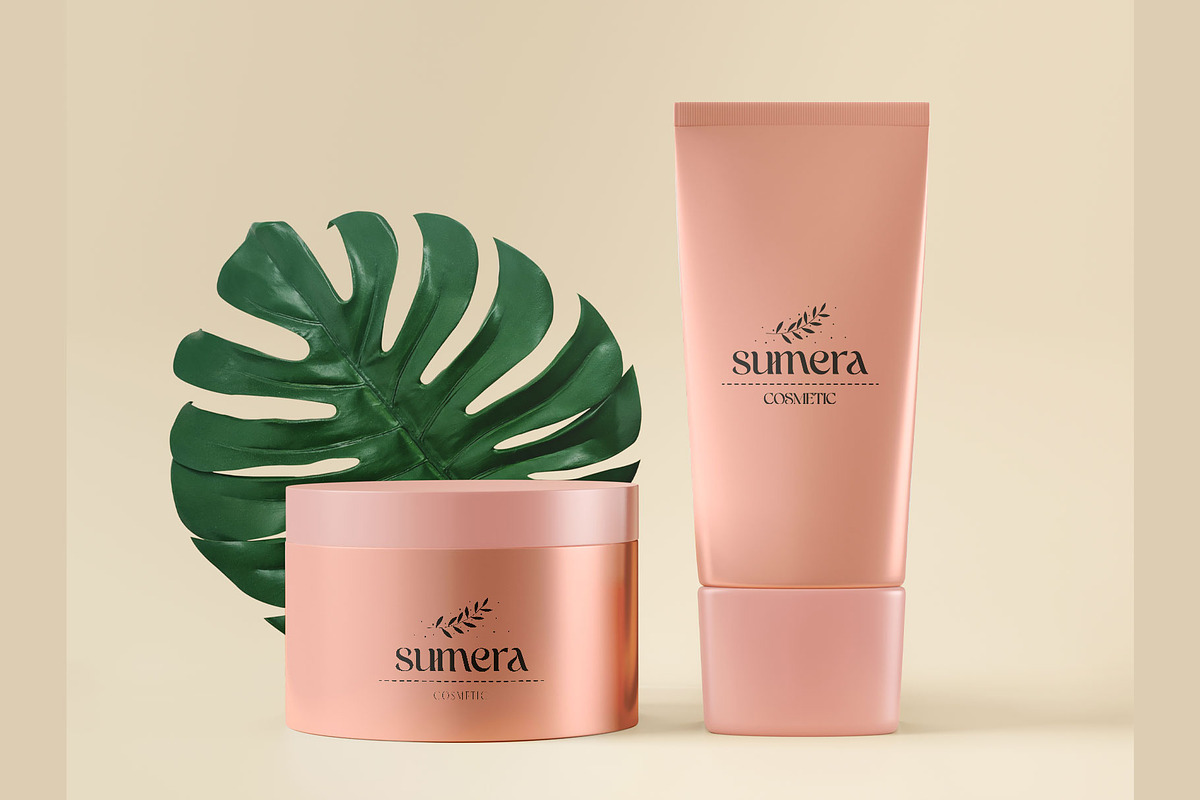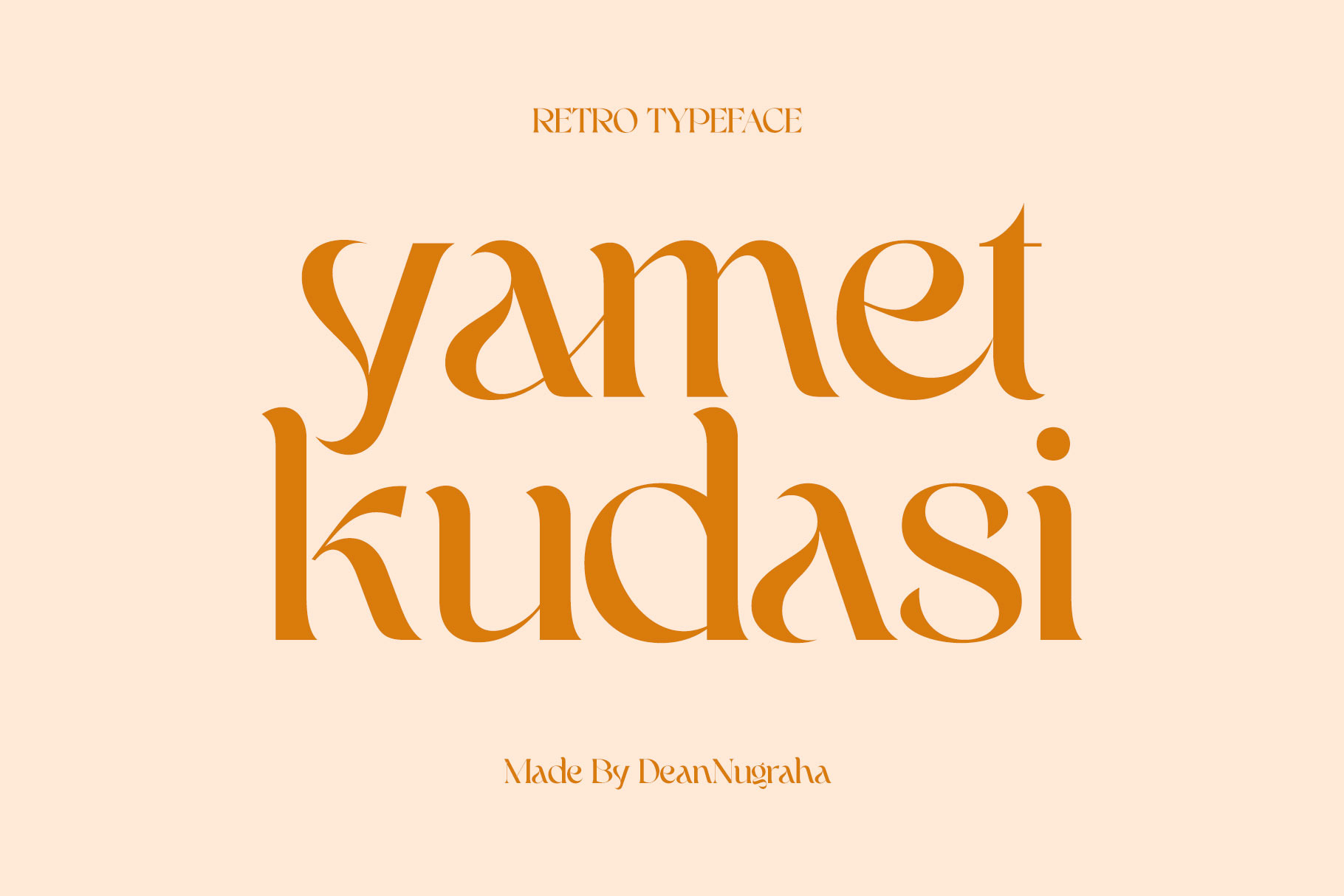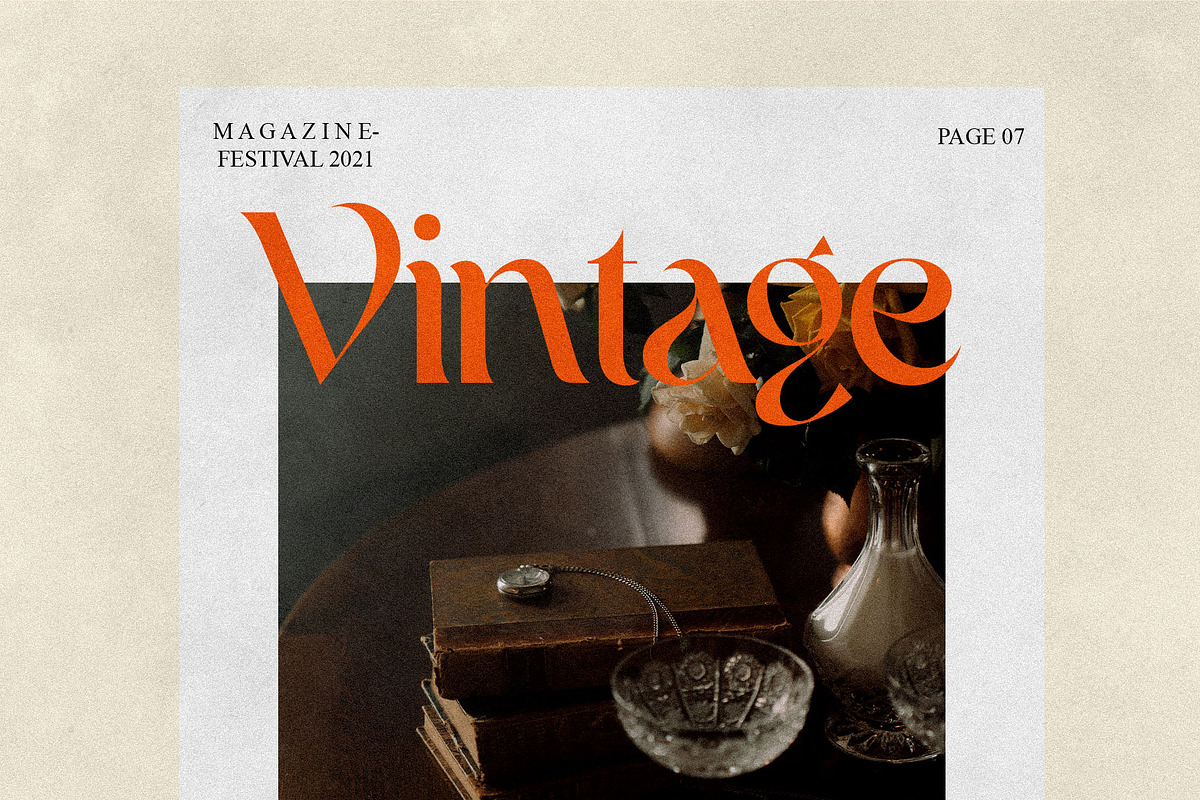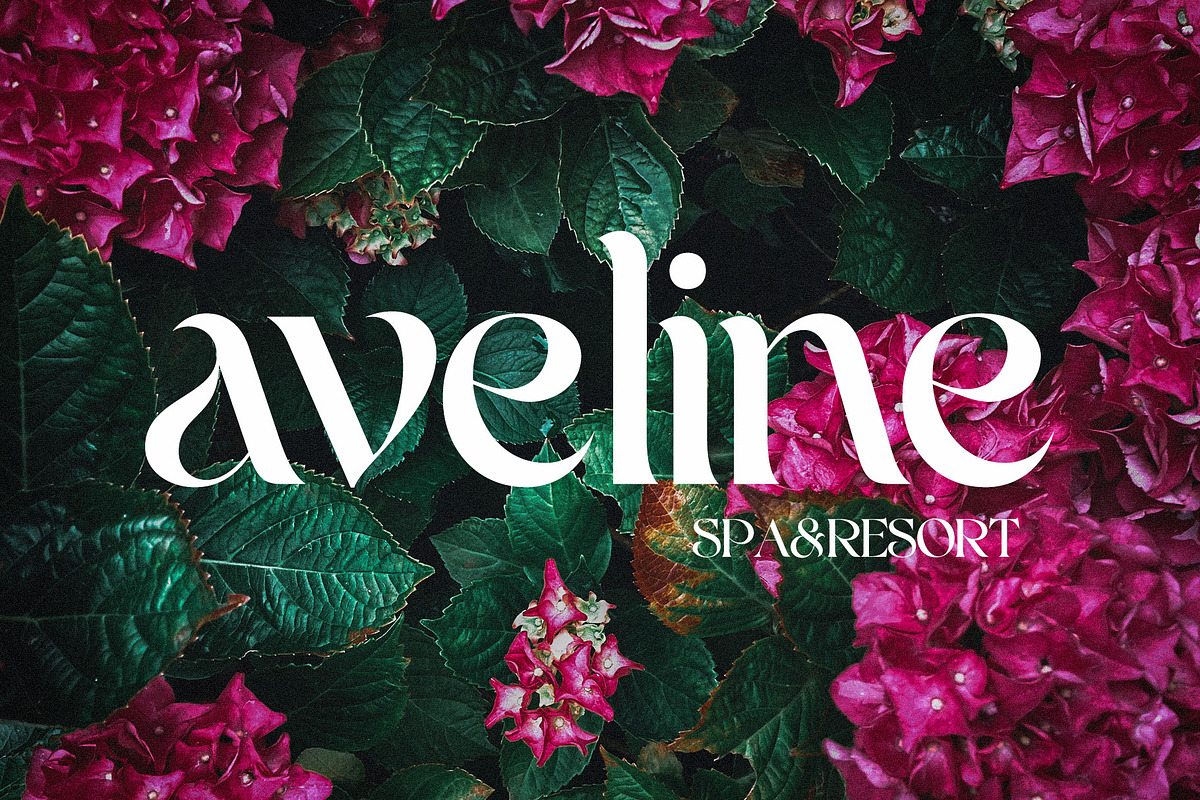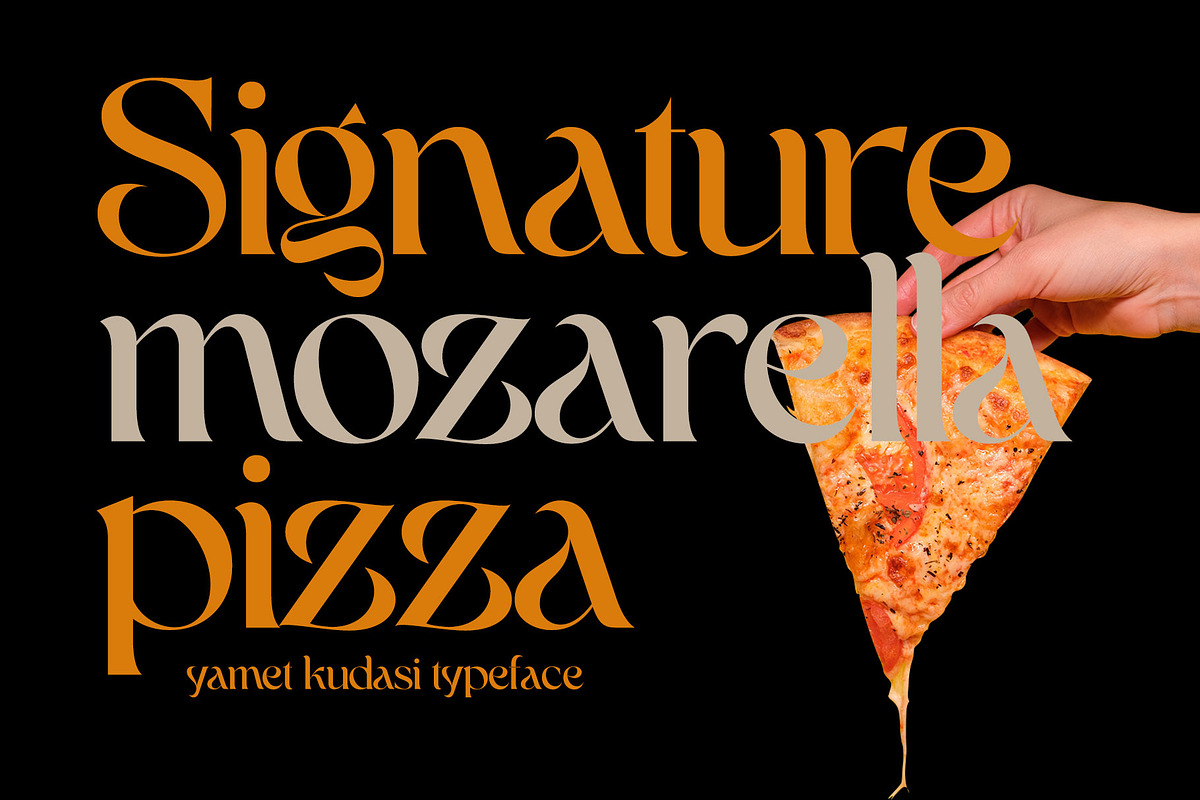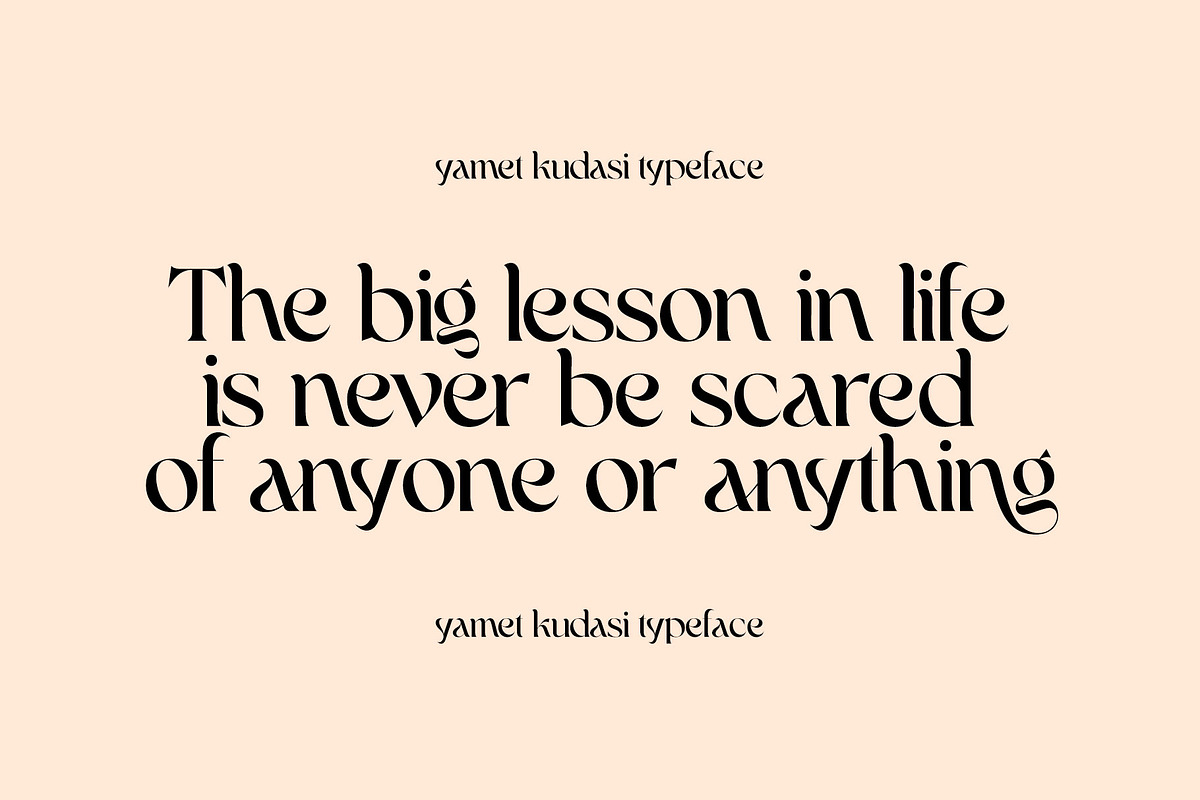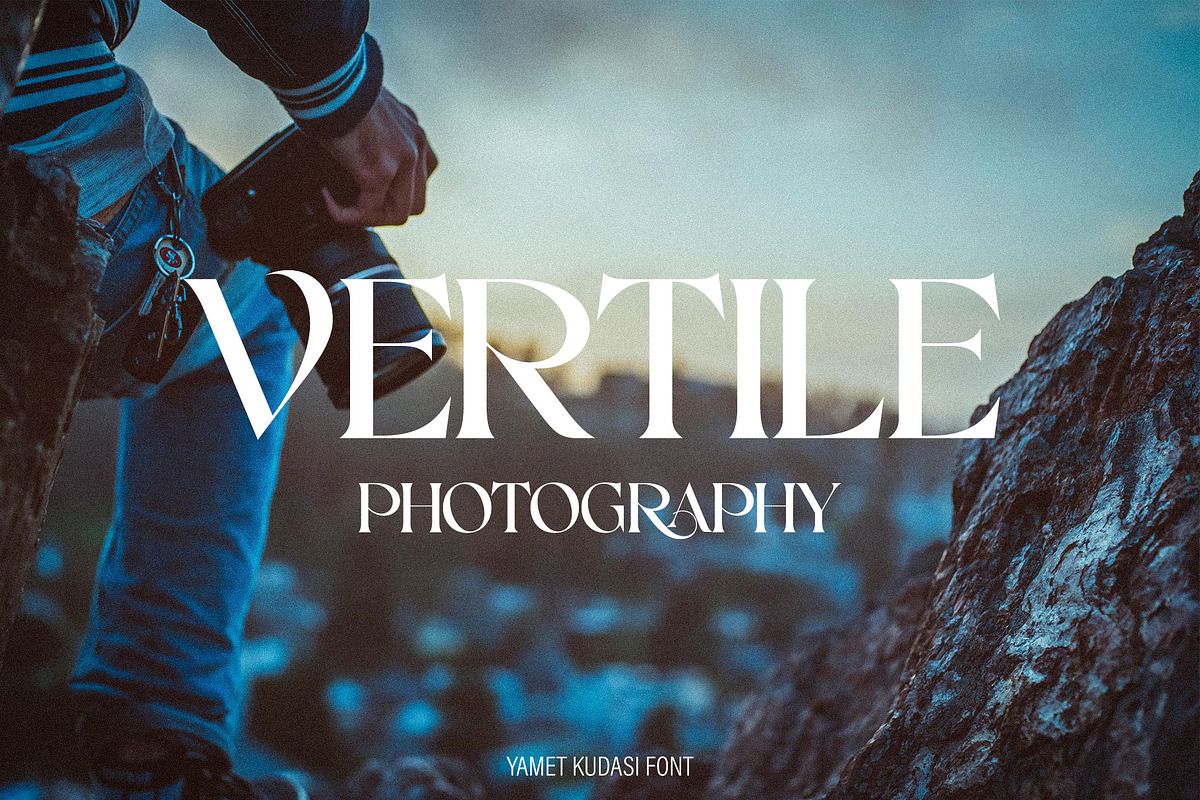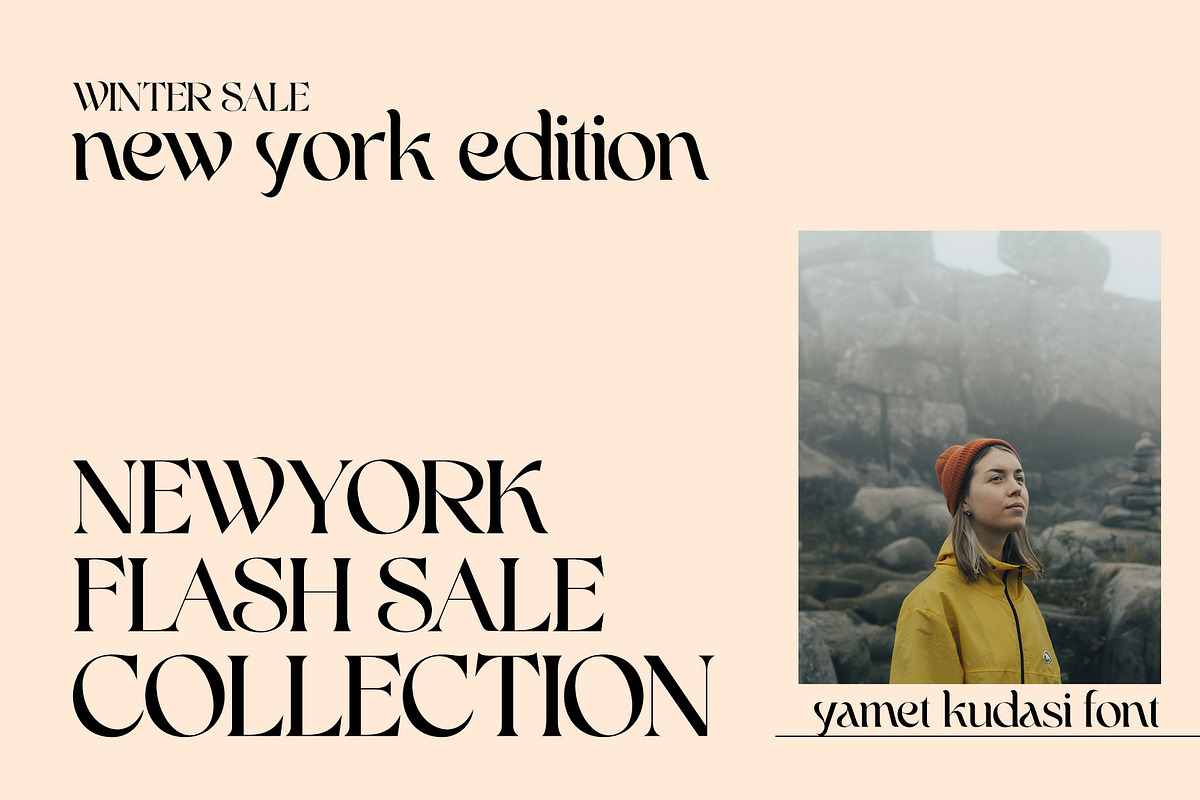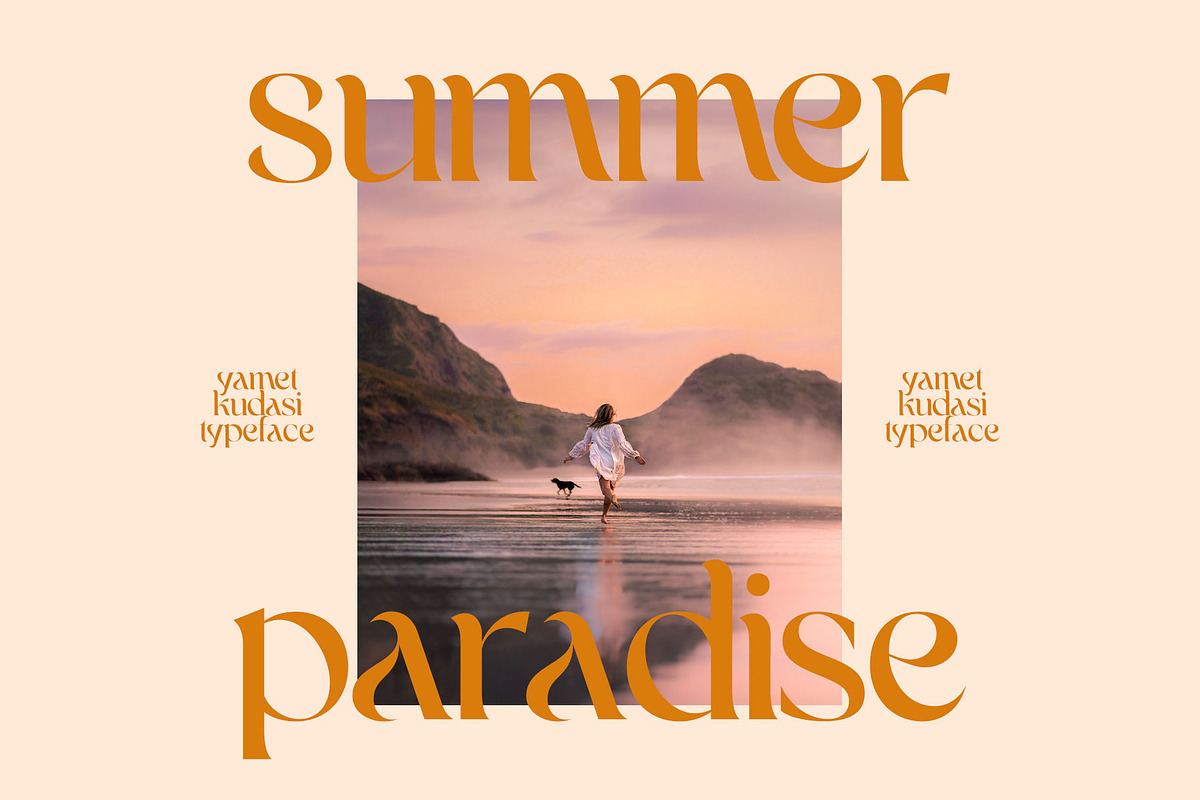
yamet kudasi-retro font
yamet kudasi is a special retro-modern style font. Made with accurate accuracy. It is perfect for branding design, logo, greeting cards, headline packaging. and other designs. Immediately use our fonts to make your work even more amazing.